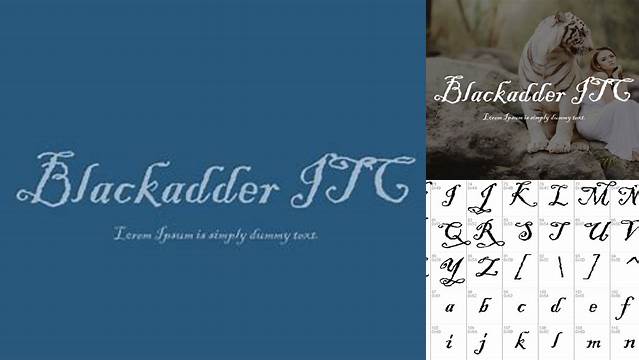
Alright, guys, let's dive into the world of typography! Today, we're going to talk about the Blackadder ITC font free download – a beautiful, elegant typeface that can add a touch of sophistication to any project. This font, with its flowing strokes and calligraphic style, is a fantastic choice for various design endeavors. If you're looking to enhance your designs with a touch of classic elegance, you're in the right place! We'll explore where you can find this font, its history, how to use it, and why it's still so popular. Get ready to elevate your design game with the Blackadder ITC font free download! Let’s get started!
Unveiling the Beauty of Blackadder ITC Font
So, what exactly makes the Blackadder ITC font so special? Well, it's all in the details, my friends! This font is known for its flowing, almost handwritten appearance. Imagine elegant script, like something you'd see on a fancy invitation or a classic book cover. It's a typeface that exudes grace and sophistication, and it's been a favorite among designers for decades. The design of Blackadder ITC is the work of the esteemed designer W.A. Dwiggins. The design was released in 1937. Its distinct style, with its connecting strokes, makes it perfect for conveying a sense of luxury and timelessness. Whether you're working on a wedding invitation, a logo, or a website header, the Blackadder ITC font can add that perfect touch of class. The origins of Blackadder ITC can be traced back to the late 1930s, a time when calligraphic fonts were rising in popularity. Dwiggins's design captured this essence beautifully, creating a font that is both artistic and legible. Over the years, it has been adapted and refined by ITC, making it even more accessible and versatile for modern design applications. The versatility of the Blackadder ITC font free download is also something to consider. Despite its classic roots, it remains incredibly relevant today. It can be used in a wide range of contexts, from print to digital media. You can incorporate it into your projects to add that specific touch of elegance. This flexibility makes it a go-to choice for many designers who want to create a memorable visual impact. It is perfect for anything where you want to convey a sense of sophistication or artistic flair.
Decoding the Essence of Blackadder ITC's Design
When we delve deeper into the design elements of the Blackadder ITC font free download, we find a host of unique features. The most striking aspect is its calligraphic style. The letters appear to flow gracefully into each other, creating a seamless and visually appealing effect. The strokes are fluid and organic, mimicking the natural movement of a pen. This gives the font a handmade and personal feel, making it ideal for projects that require a human touch. Furthermore, the font's weight and style contribute to its overall aesthetic appeal. The thickness of the strokes is consistent, providing a balance between boldness and delicacy. This ensures that the font is both eye-catching and easy to read, even at smaller sizes. The contrast between thick and thin strokes adds another layer of visual interest. These details are what makes the Blackadder ITC font free download unique and visually attractive. The designer has clearly put a lot of thought into every curve and flourish. This attention to detail is evident in the way the letters interact with each other, creating a harmonious visual experience. Overall, the design essence of the Blackadder ITC font is all about elegance, grace, and artistic expression. If you are looking for something that is visually stunning, then this is the font for you!
Applications of Blackadder ITC Font in Design
The versatility of the Blackadder ITC font free download makes it a favorite among designers. It's perfect for adding a touch of elegance to any project, from print to digital media. Consider wedding invitations. With its flowing script, it creates a sense of romance and sophistication. The font adds a personal touch that standard fonts can't replicate. Websites can also benefit greatly from the use of this font. Use it for headings or call-to-action buttons. Logos also come to mind. Blackadder ITC can make a logo instantly recognizable and memorable. It is ideal for brands that want to convey a sense of heritage, luxury, or artistic flair. Even book covers can benefit from the Blackadder ITC font. Its flowing script style is perfect for creating a sense of anticipation and excitement. In essence, the applications of the Blackadder ITC font are as varied as your imagination. You can use it for a wide range of projects to add that perfect touch of class and elegance.